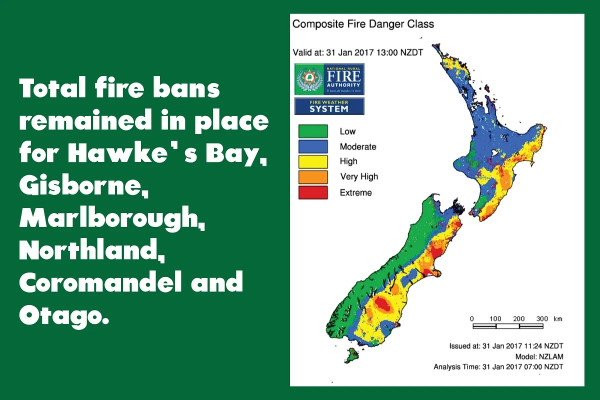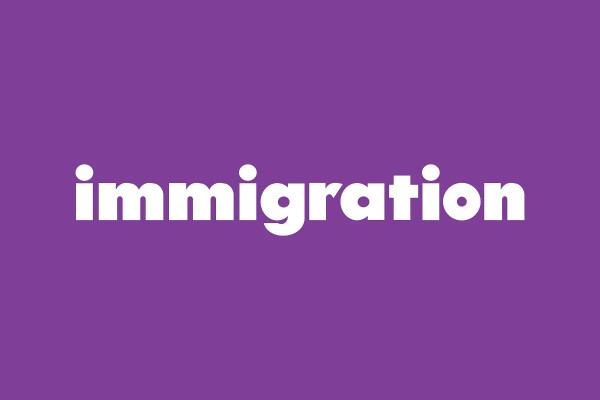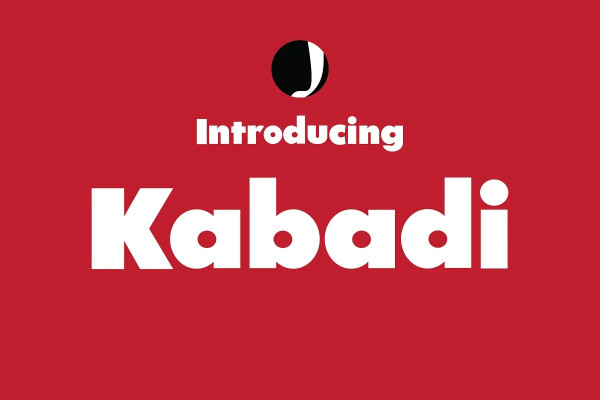
Kabadi Font
Kabadi Font is our one of the finest bold display sans font “Kabadi” The name is basically a wrestling in punjabi language, the font is tribute to that profession. This is ideal for headlines, magazine, coverpage etc.